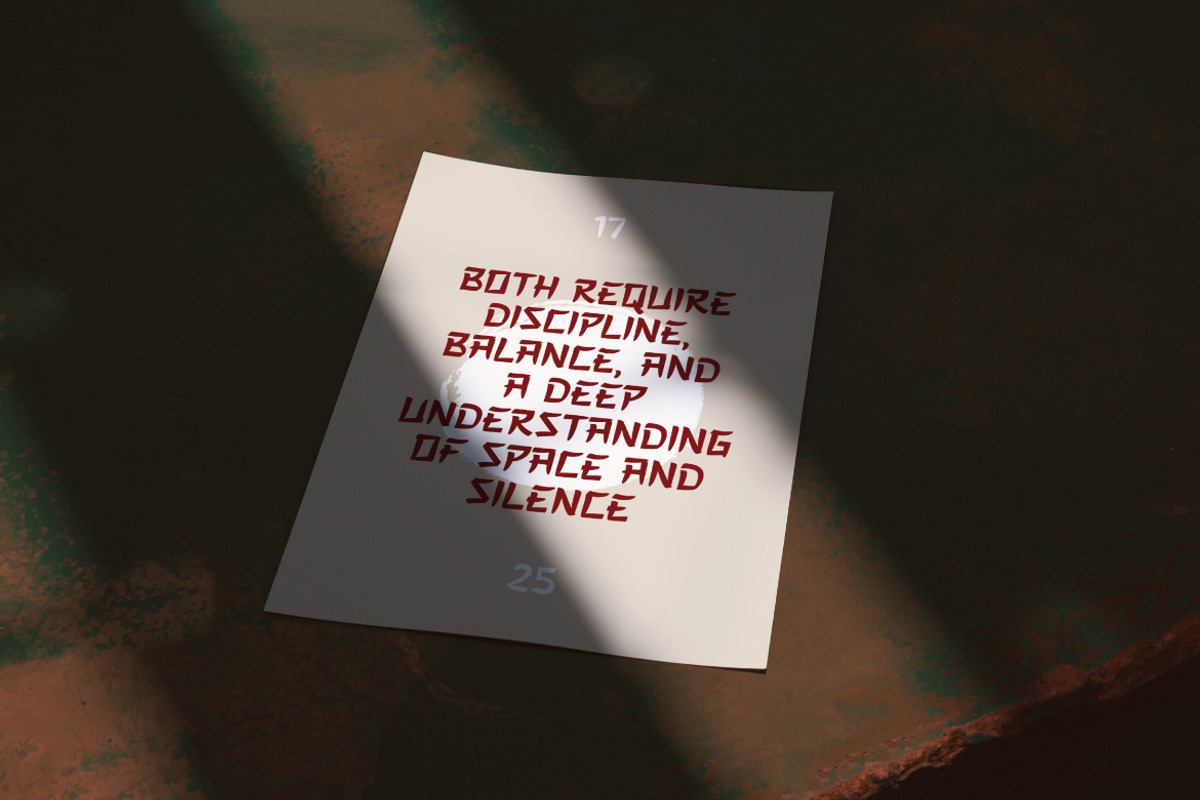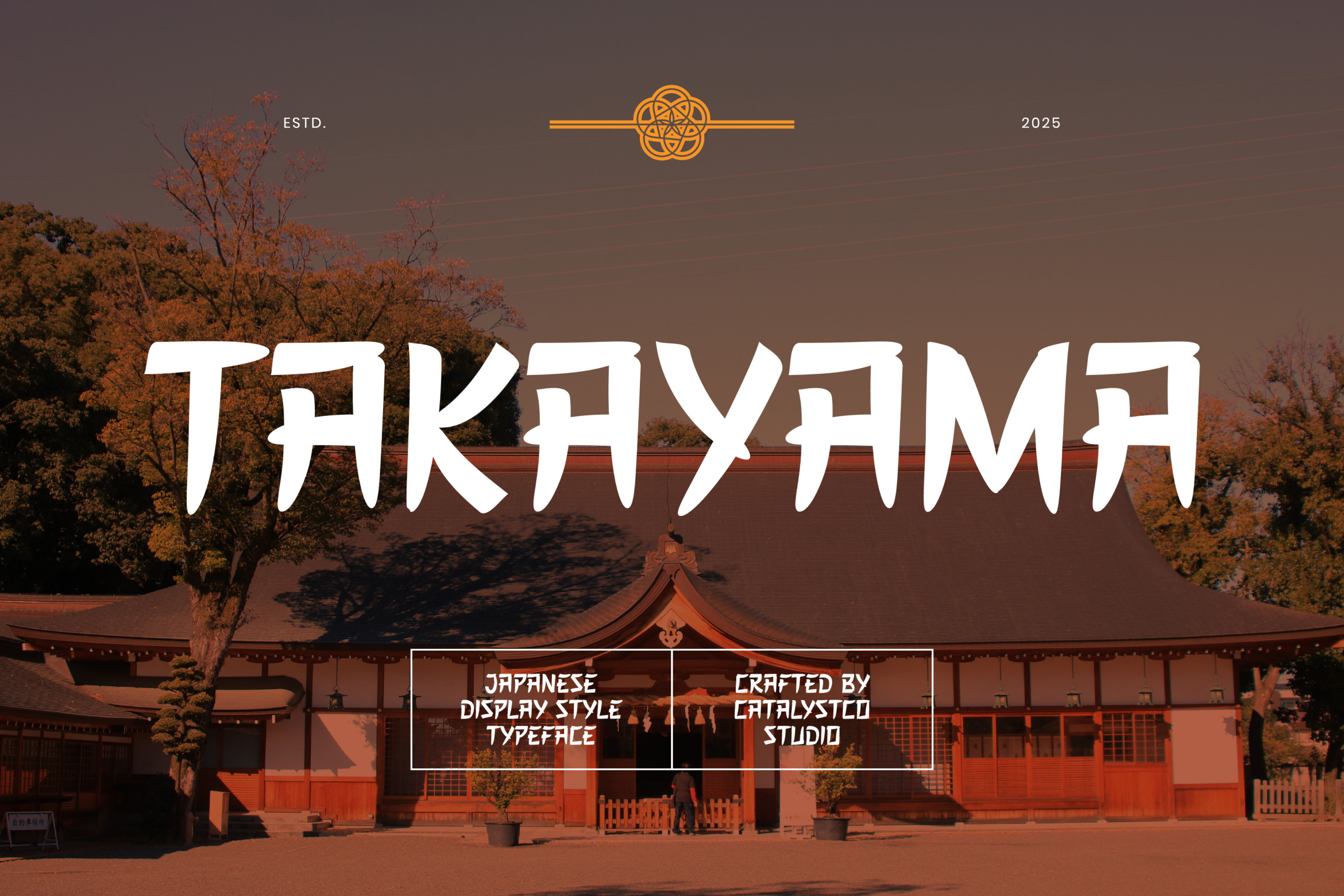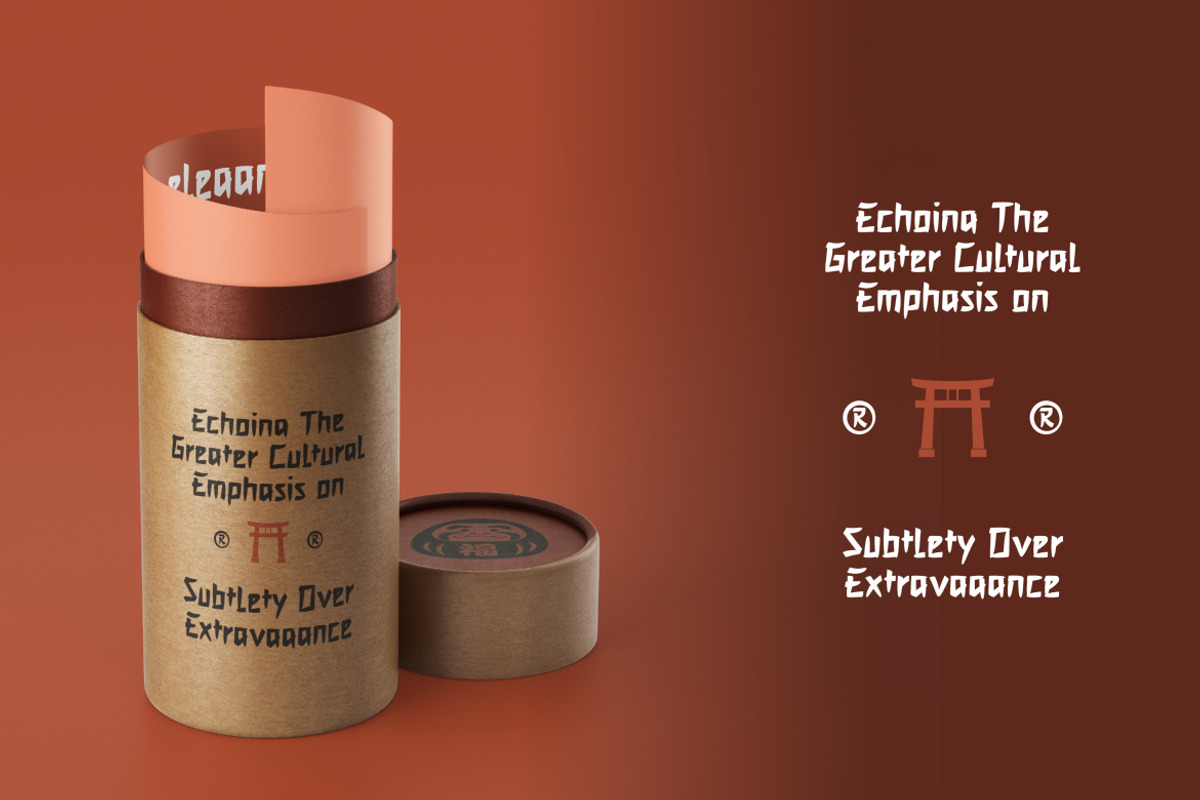
Takayama Japanese Display Style Font
Takayama is a bold and expressive display font inspired by traditional Japanese brush strokes and modern graphic style. With distinct character shapes that evoke cultural energy and artistic movement, this typeface delivers expressive impact while maintaining clear readability. The family includes full uppercase and lowercase alphabets, numerals, punctuation, and a range of stylistic glyphs suitable for vibrant displays and creative layouts.
Takayama is perfect for designers seeking an eye‑catching typeface that blends traditional inspiration with modern creativity. Its dramatic strokes and artistic presence make it ideal for posters, cultural event branding, Asian‑themed packaging, festival artwork, social media visuals, and editorial headlines.
- Inspired by traditional Japanese calligraphy and brush strokes
- Sharp, angular cuts balanced with organic flow for cultural authenticity
- Unique character forms that blend heritage with modern structure
- High-contrast strokes for impactful visibility in headlines and display
- Artistic and handcrafted appearance for strong visual identity
- Optimized for display use with strong rhythm and spacing
- Branding projects with Asian, oriental, or cultural themes
- Restaurant logos, especially Japanese cuisine and sushi bars
- Travel posters, event flyers, and tourism materials
- Apparel designs and packaging with traditional or handcrafted vibes
- Book covers, album art, or movie titles with historical or mythical tones
- Creative merchandise, tattoo design, or signage needing a bold cultural flair
Bold tradition meets modern design, introducing Takayama